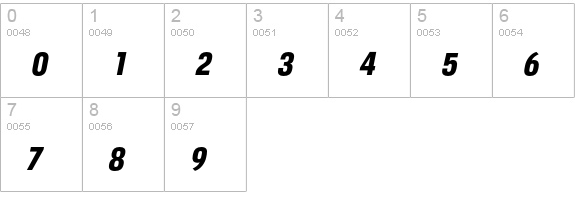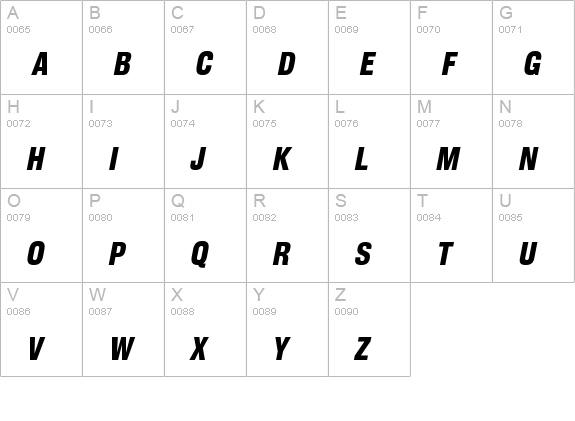
CorpusGothicOblique Font Details
CorpusGothicOblique is a striking and elegant font that exudes a sense of sophistication and modernity. Its sleek and stylish design makes it perfect for a wide range of projects, from branding to editorial design. The slanted nature of the letters adds a dynamic touch, making text appear both refined and dynamic. What sets CorpusGothicOblique apart is not just its aesthetic appeal, but also its versatility. Whether you're looking to create eye-catching headlines or sleek body text, this font has you covered. With its clean lines and distinctive angles, CorpusGothicOblique commands attention and adds a touch of flair to any design. And the best part? CorpusGothicOblique is completely free to download at FontsMarket.com. With just a few clicks, you can add this stunning font to your collection and start using it in your projects right away. Don't miss out on the opportunity to elevate your designs with CorpusGothicOblique's unique charm and style.